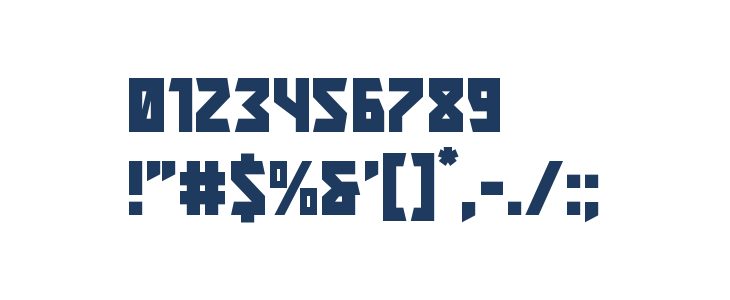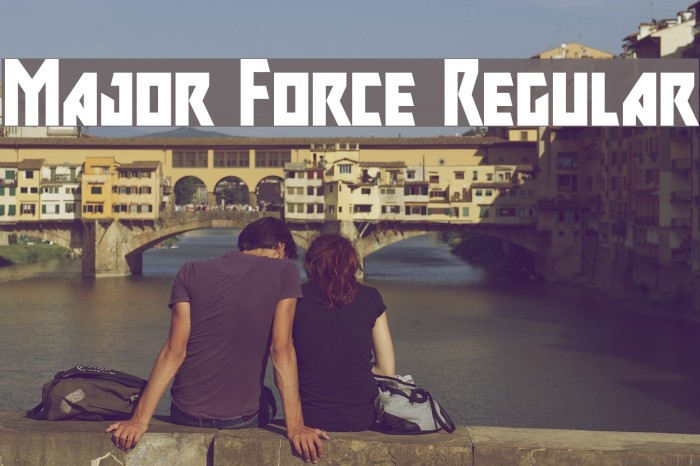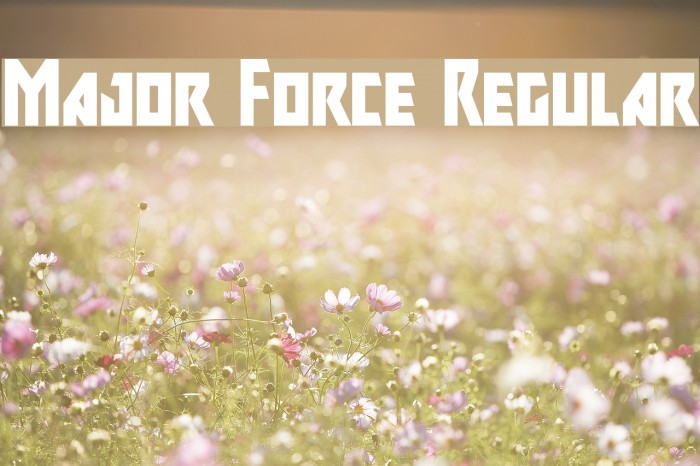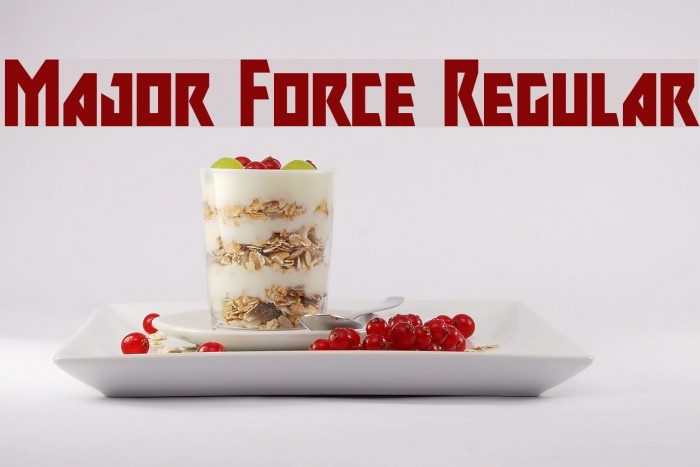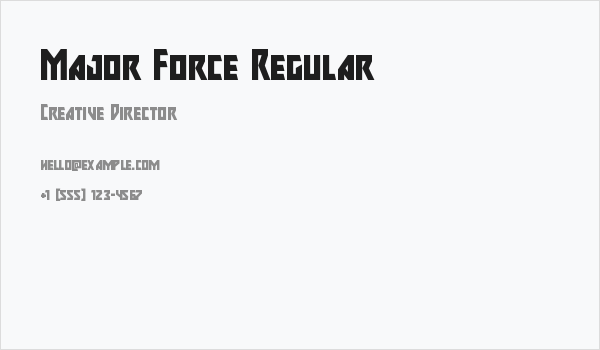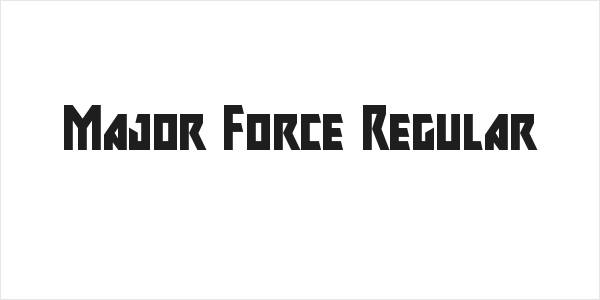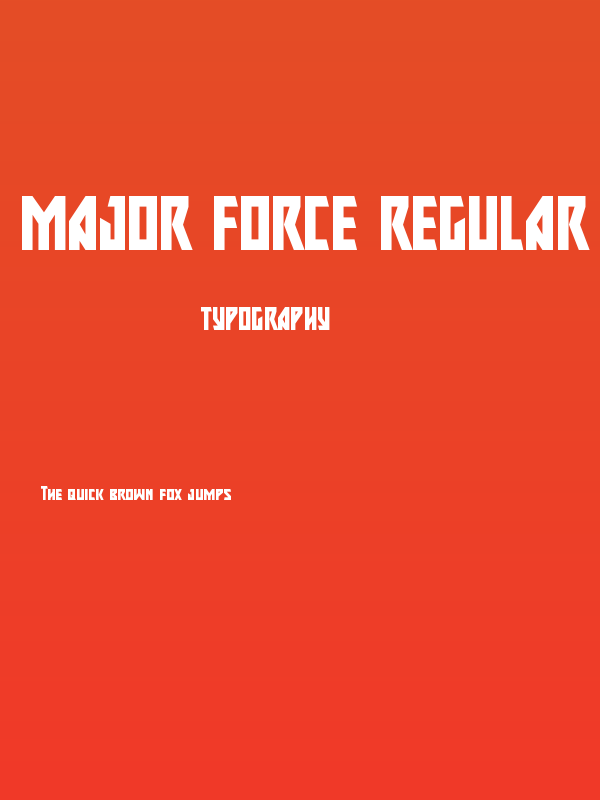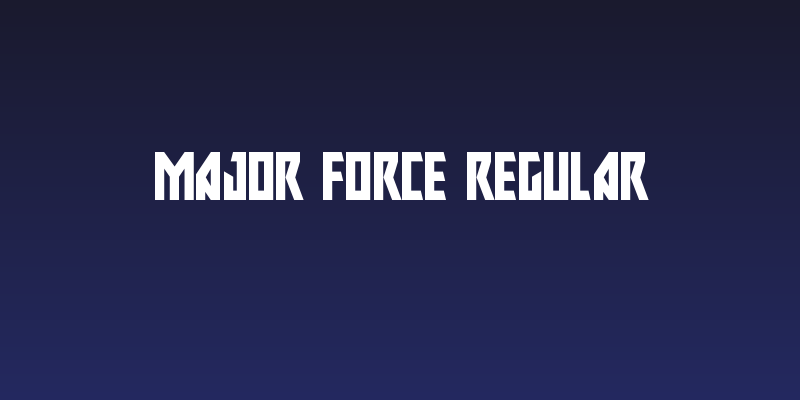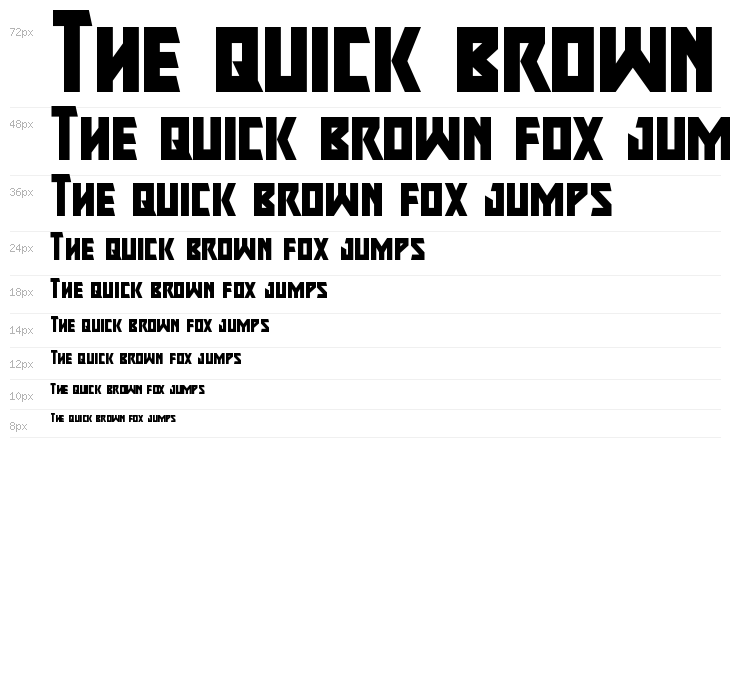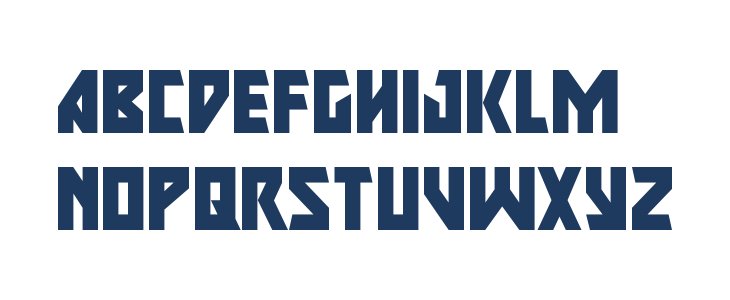
Major Force Regular Font
Major Force Regular Description
This bold and striking font features a geometric and angular design, characterized by sharp edges and a strong presence. The uppercase and lowercase letters maintain a consistent style, with each character exhibiting a blocky and robust appearance. The numbers and special characters follow the same design principles, ensuring uniformity across all elements. The font's unique style makes it ideal for projects that require a powerful and impactful visual statement. Its boldness and geometric structure lend themselves well to modern and futuristic themes, making it suitable for a variety of creative applications.
| Proposed Projects | Ideal for branding, posters, headlines, and any design requiring a strong, modern aesthetic. |